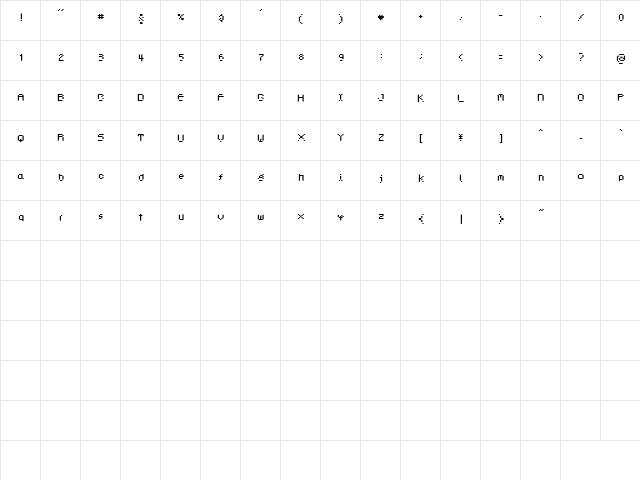
Dotphoria [minimal] Regular
Design Context for Dotphoria [minimal] Typeface
Dotphoria [minimal] is rooted in pixel-grid construction, making it a natural fit for game UI, retro computing aesthetics, and digital nostalgia projects.
A natural choice for retro game titles, chiptune music branding, 8-bit UI, and digital nostalgia projects.
Pro Tip: Pair Dotphoria [minimal] with flat colour palettes and simple geometric UI elements to reinforce its digital aesthetic.